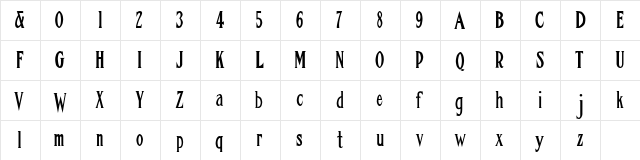
LHF Condensed French Regular
Design Context for LHF Condensed French Typeface
LHF Condensed French offers clean, dependable letterforms without strong stylistic allegiance, making it a practical choice for designers who need flexibility. Its narrow stance lets it pack a punch even in space-constrained designs.